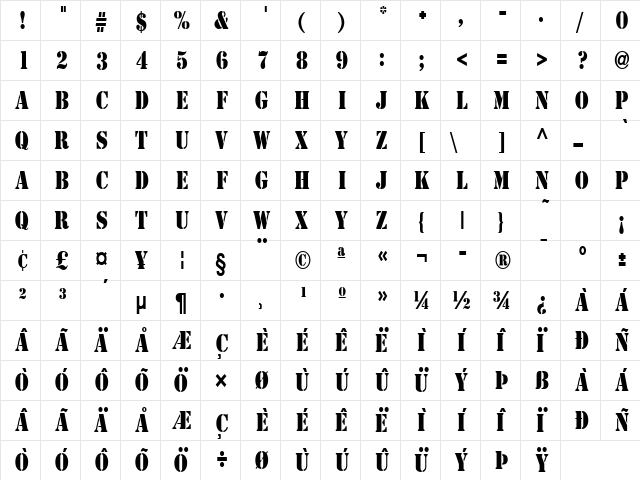
GI StencilCondensed Normal
Design Context for GI StencilCondensed Typeface
GI StencilCondensed has the rough pragmatism of spray-painted stencil signage, adding a raw, street-level authenticity to designs.
Ideal for industrial branding, streetwear, military-adjacent aesthetics, and urban signage projects.
Pro Tip: Pair GI StencilCondensed with raw, utilitarian design elements — exposed concrete textures, flat colour, and minimal ornamentation suit it well.